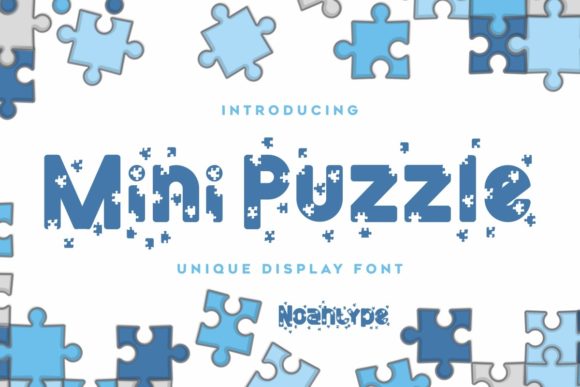
Step into the realm of creativity and immerse yourself in the enthralling world of Mini Puzzle Font, a captivating display font designed to ignite your imagination and add a touch of whimsy to your designs. Crafted with meticulous attention to detail by the talented NoahType, Mini Puzzle Font is a true masterpiece that will elevate your projects to new heights.
Unleash the boundless potential of this extraordinary font family, meticulously engineered to cater to the discerning needs of designers, artists, and creative professionals. Whether you're embarking on a product packaging design, crafting a captivating branding project, designing magazine covers that leave a lasting impression, or seeking to create eye-catching social media posts that stand out from the crowd, Mini Puzzle Font is your perfect companion.
With its versatility and charm, Mini Puzzle Font seamlessly adapts to a myriad of design projects, adding a touch of magic to wedding invitations, personalizing heartfelt messages, or simply expressing your thoughts and ideas with a unique and captivating flair. Let your creativity soar as you explore the endless possibilities that await you with Mini Puzzle Font.
This remarkable font is PUA encoded, ensuring effortless access to a treasure trove of glyphs and swashes, empowering you to unleash your creativity and elevate your designs with boundless possibilities. Embrace the allure of Mini Puzzle Font and embark on a typographic adventure that will leave a lasting impression on your audience.